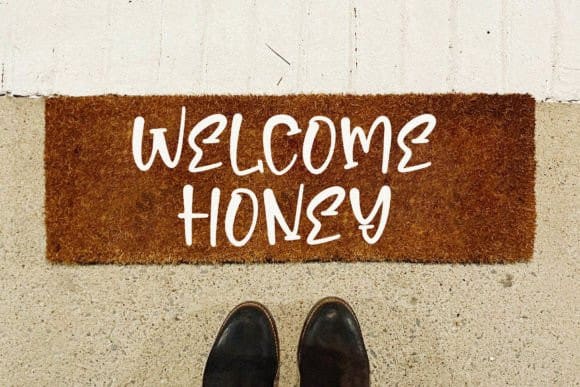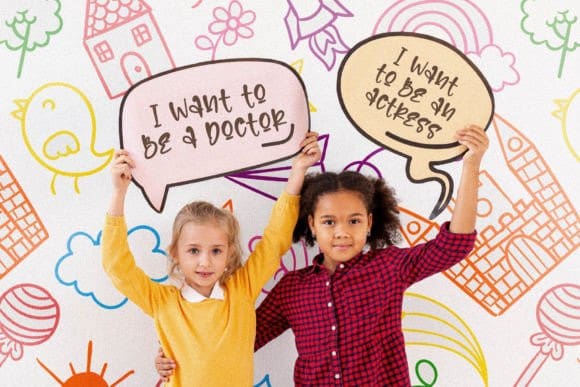
Morning Cake Font
Morning Cake Font is a kids’ font style in a playful handwriting style. Grab his childish font and create clothing, kids’ books, logos, branding, product packaging, mugs, quotes, posters, shopping bags, and more.